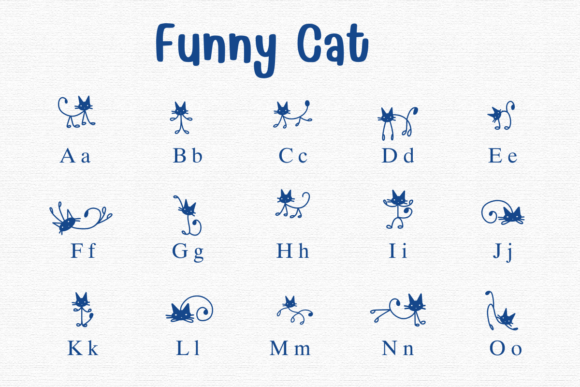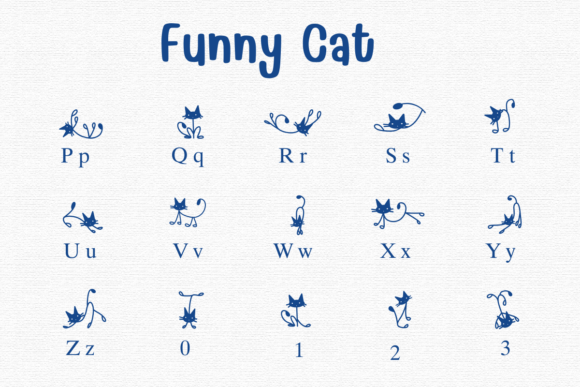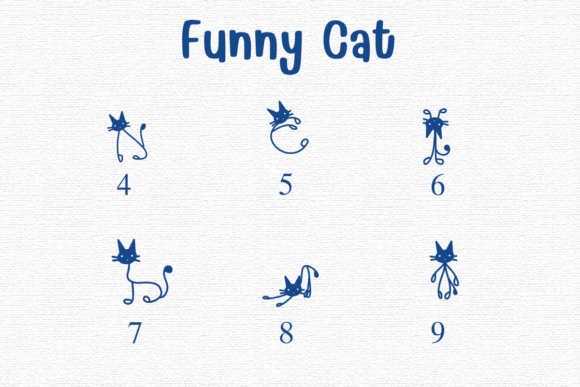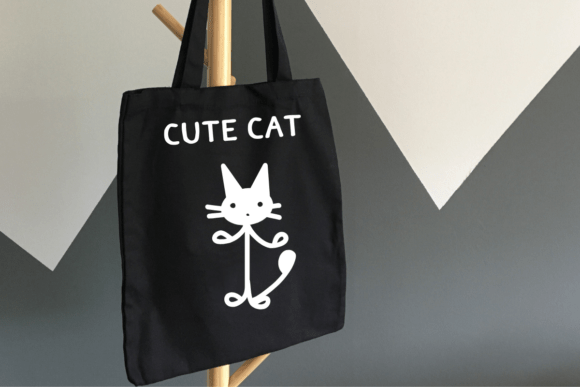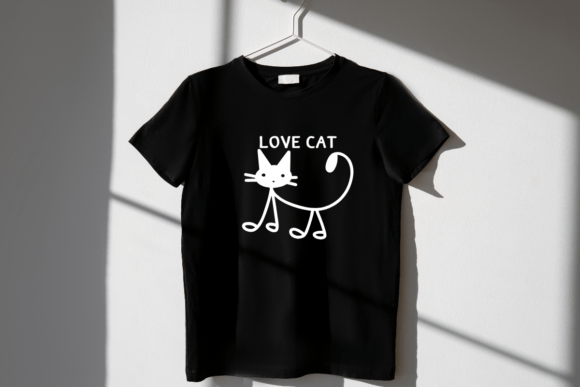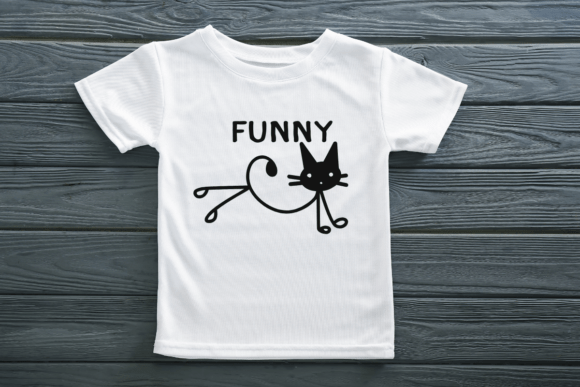
Unleash Whimsy with the Funny Cat Font: A Playful Collection for Designers and Crafters
Are you looking to add a dash of adorable whimsy to your designs? Look no further than the Funny Cat Dingbats Font! This delightful collection features quirky, hand-drawn cat doodles in a variety of silly poses and expressions. Whether you’re working on cat-themed projects, designing greeting cards, creating kids’ books, or crafting unique items, this font is purr-fect for bringing a touch of feline fun to your work.
The Charm of Hand-Drawn Illustrations
The Funny Cat Font stands out with its hand-drawn illustrations, each one brimming with personality. Unlike generic, cookie-cutter fonts, these quirky cat designs are meticulously crafted to evoke a sense of playfulness and charm. The hand-drawn nature of the font gives it a unique, bespoke feel that is sure to captivate your audience and set your designs apart.
One of the most significant advantages of the Funny Cat Font is its versatility. The collection includes a wide range of cat illustrations, from cute and cuddly to silly and absurd. This variety ensures that you can find the perfect image to match your project’s tone and style. Whether you’re aiming for humor, sweetness, or a bit of both, this font has got you covered.
Perfect for Various Projects
The applications for the Funny Cat Font are endless. Here are a few ideas to get you started:
• Cat-Themed Projects: From cat calendars to cat-themed party invitations, this font is a must-have for any project centered around our feline friends.
• Greeting Cards: Add a personal touch to your greeting cards with adorable cat illustrations that are sure to bring a smile to the recipient’s face.
• Kids’ Books: Create engaging and interactive children’s books with the Funny Cat Font. The playful illustrations will captivate young readers and make your book a standout.
• Crafts: Whether you’re making DIY crafts, scrapbooking, or creating handmade cards, this font can add a unique and personalized element to your projects.
Easy to Use
Why Choose the Funny Cat Font?
In a world where design trends come and go, the Funny Cat Font offers a timeless appeal. Cats have always been popular, and their cute and quirky nature makes them a favorite among audiences of all ages. By incorporating this font into your designs, you’re tapping into a universal affection for cats, making your projects instantly more relatable and engaging.
The Funny Cat Dingbats Font is a fantastic tool for designers and crafters looking to infuse their projects with a dose of whimsy and fun. Its unique, hand-drawn illustrations are sure to captivate your audience and bring a fresh, playful perspective to your work. Whether you’re creating cat-themed projects, greeting cards, kids’ books, or crafts, this font is an excellent choice. So why wait? Bring a little feline fun to your designs with the Funny Cat Font today!
• Hand-drawn cat illustrations
• Wide range of silly poses and expressions
• Perfect for cat-themed projects, greeting cards, kids’ books, and crafts
• Timeless appeal with universal affection for cats